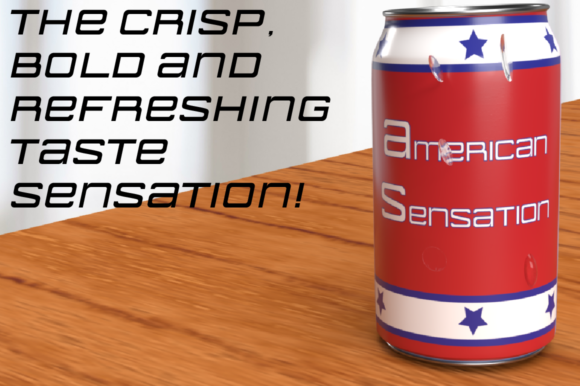
The Birth of a Classic: Unpacking the American Sensation Family Font
Remember the thrill of stumbling upon the perfect font to elevate your latest design project? For many creatives, it’s a moment of pure excitement, as if the puzzle pieces finally fall into place. That’s exactly what happened when I first laid eyes on the American Sensation Family Font.
This charming sans serif font exudes a unique blend of sophistication and playfulness, making it a versatile addition to any design arsenal. Whether you’re crafting a vintage-inspired advertisement or a modern website, the American Sensation Family Font is sure to bring a touch of elegance to your work. Its PUA encoding allows for seamless access to all glyphs and swashes, giving designers the freedom to experiment and push the boundaries of creative expression.
American Sensation Family Font Key Features
• Unique Characteristics: American Sensation Family Font is designed to evoke a sense of nostalgia and classic Americana, with distinctive letterforms and a warm, vintage feel.
Review of American Sensation Family Font
I recently had the chance to work with the American Sensation Family Font, and I must say, it’s a font that’s sure to make a statement. ✨ Here are some things that work well:
• Unique character: American Sensation Family Font has a distinct, bold personality that’s perfect for making a splash.
• High-quality design: The font is well-designed, with crisp lines and clear typography.
• Flexible use: It can be used in a variety of contexts, from advertising and marketing to digital products and print materials.
• Not ideal for small text: Due to its bold nature, the font can be difficult to read at small sizes.
• Limited character set: The font’s character set is not as comprehensive as some other fonts, which may limit its use in certain contexts.
Overall, I’d say the American Sensation Family Font is a great choice for projects where you want to make a bold statement. It’s a fun, eye-catching font that’s sure to grab attention. Just be mindful of its limitations, and use it judiciously.
Tips for Getting the Most Out of American Sensation Family Font
Use American Sensation Family Font for creating bold, eye-catching headlines and titles.
Combine it with other fonts for a unique and stylish look.
Use American Sensation Family Font for:
Headlines and titles in advertising and marketing materials.
Logo design and branding.
Creating a unique and stylish look for your website or blog.
Alternatives to American Sensation Family Font
Playfair Display is a luxurious and elegant script font, ideal for use in titles and headings where a touch of sophistication is required. It features intricate details and flourishes, making it perfect for wedding invitations, luxury branding, and high-end publications.
Compared to American Sensation Family Font, Playfair Display has a more refined and classical look, whereas American Sensation Family Font has a more playful and vintage feel. Playfair Display is also more suitable for formal and high-end designs, whereas American Sensation Family Font is better suited for casual and playful designs.